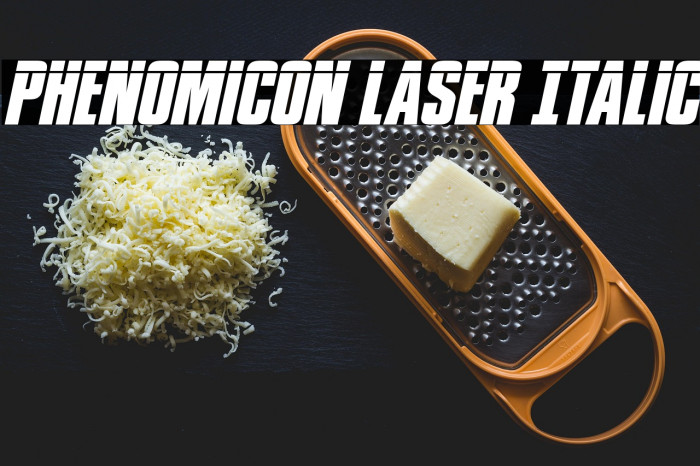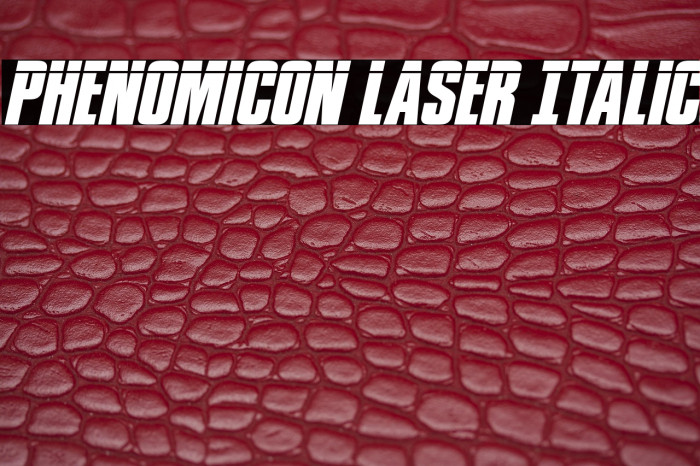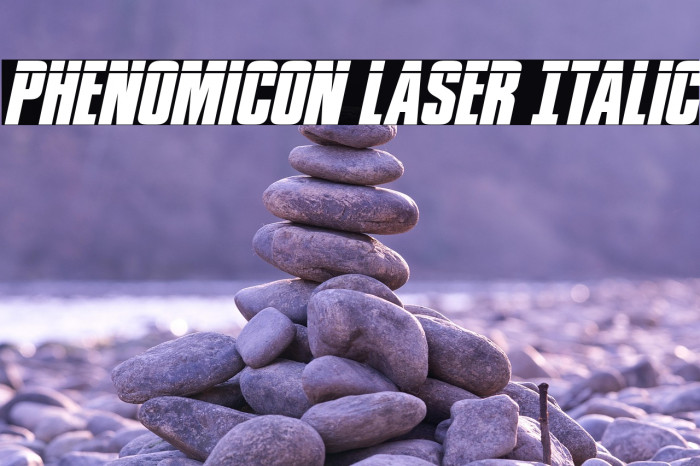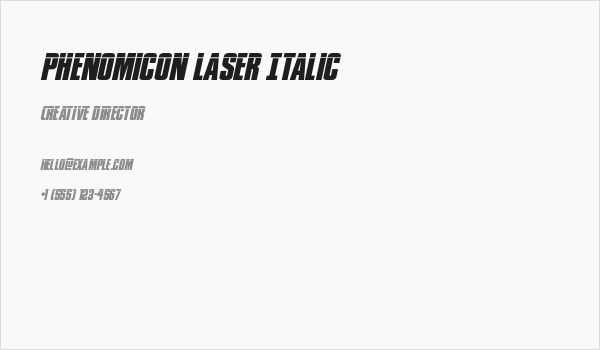
Phenomicon Laser Italic Font
Phenomicon Laser Italic Description
This font features a bold and dynamic style with a strong italic slant, giving it a sense of motion and energy. The characters are wide and have a condensed appearance, which enhances their boldness. The strokes are thick and consistent, providing a high contrast that makes the font stand out. The overall design is modern and sleek, suitable for projects that require a strong visual impact. The uppercase and lowercase letters maintain a uniform style, while the numerals and special characters complement the overall aesthetic.
| Proposed Projects | Ideal for sports branding, dynamic posters, event promotions, and modern logos. |